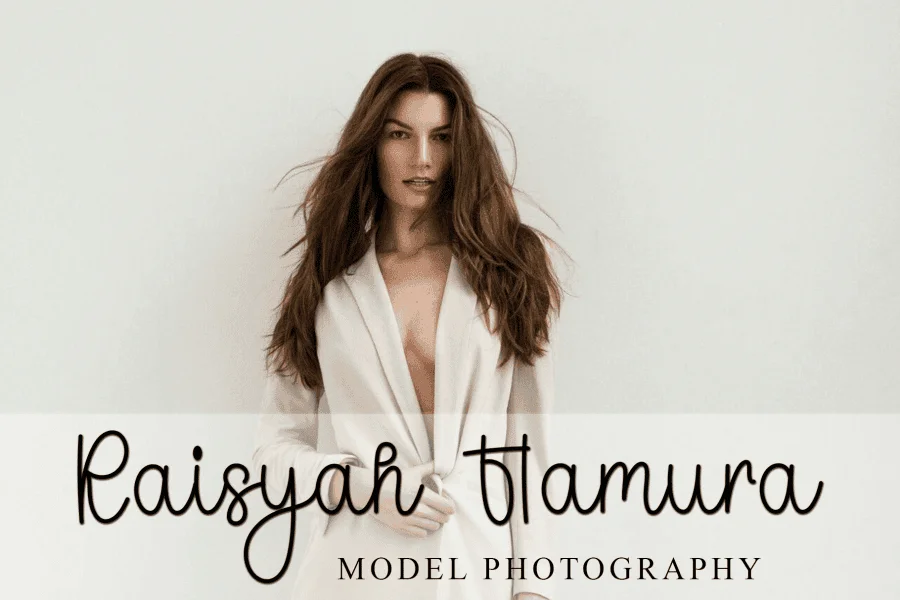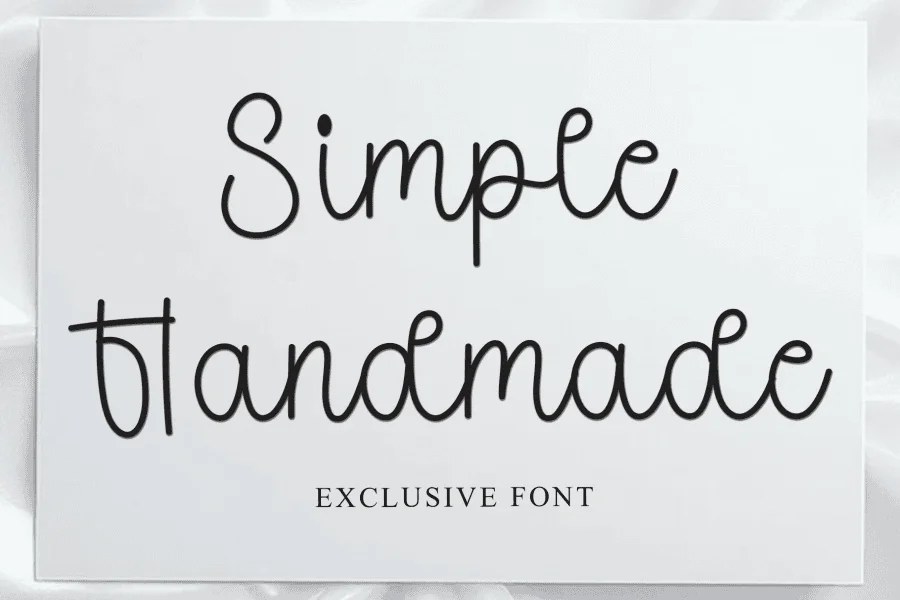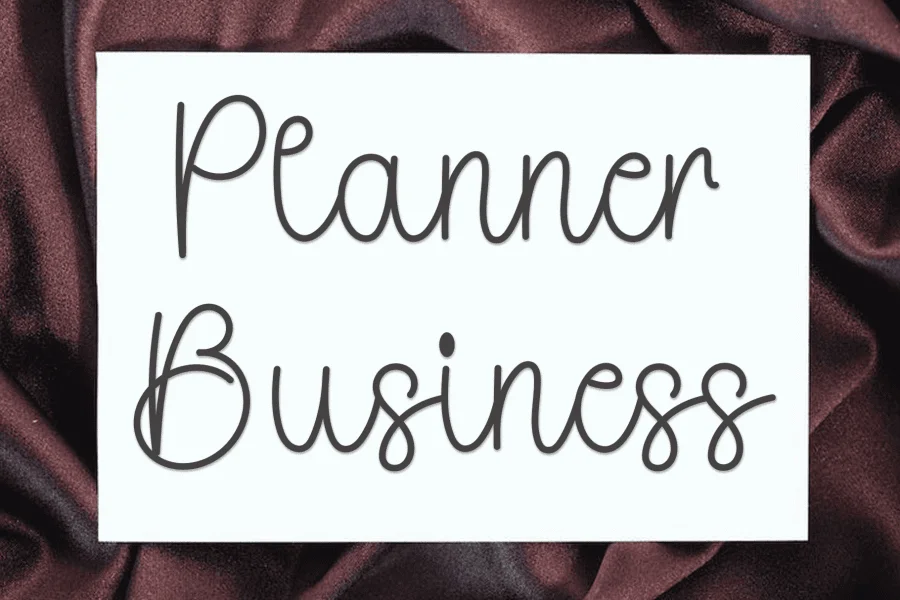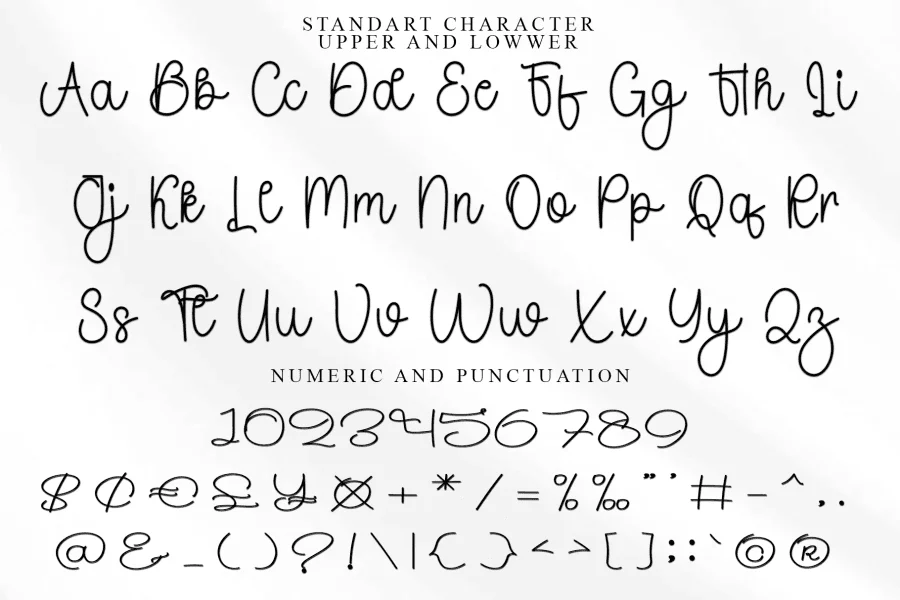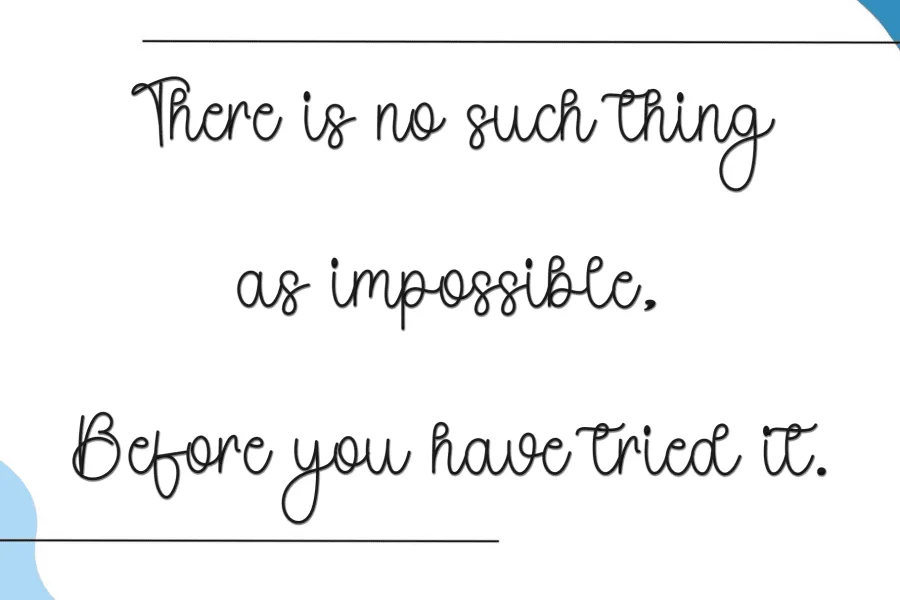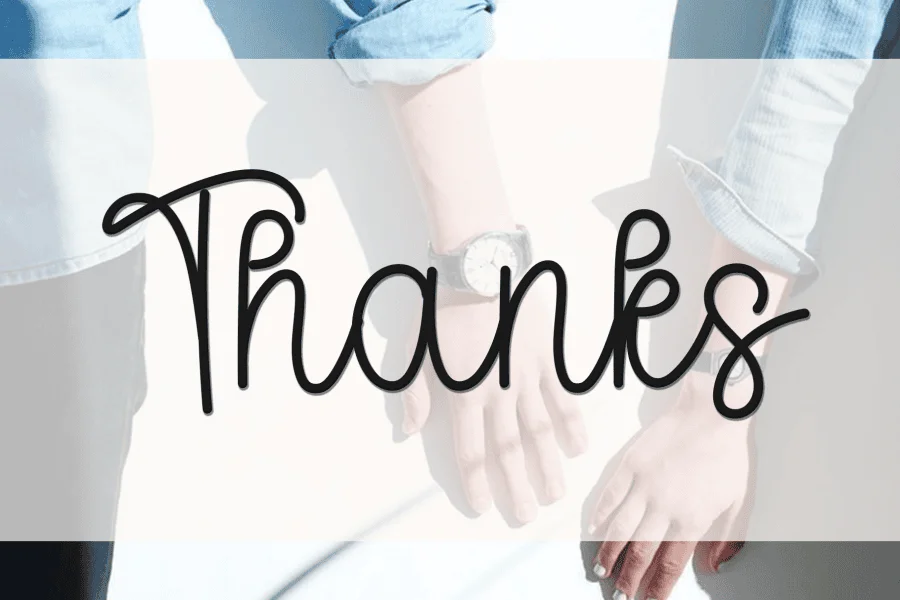
Improve Melody is a whimsical, monoline typeface that blends a casual, handwritten feel with a structured rhythmic flow. Characterized by its uniform line weight and playful, looping ascenders and descenders, the typeface projects an approachable and charming tone. Its design features a distinct horizontal flow, with elongated entry and exit strokes that create a continuous, melodic connection between letters, giving text a lyrical, hand-drawn texture.
This typeface is well-suited for projects requiring an intimate, personal touch, such as bespoke wedding stationery, artisanal product packaging, and lifestyle branding. Its friendly and elegant demeanor also makes it an excellent choice for editorial layouts, creative portfolios, social media graphics, and handmade craft designs where a warm, human connection is desired.